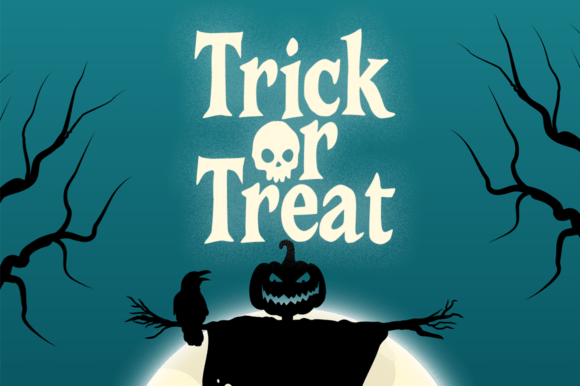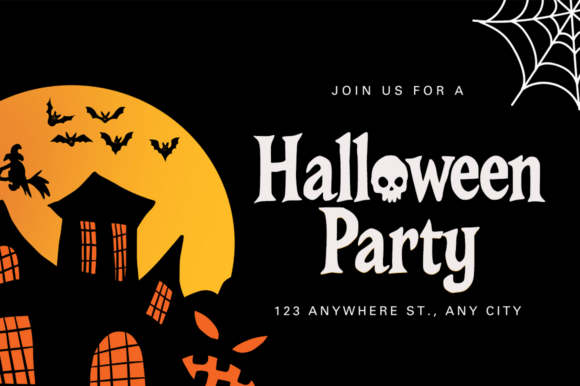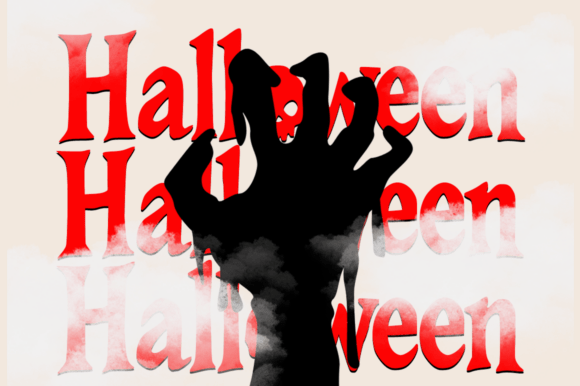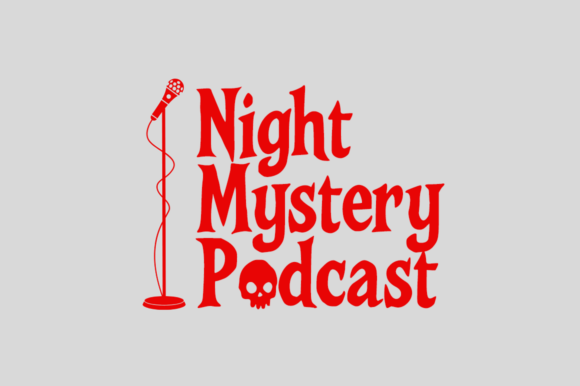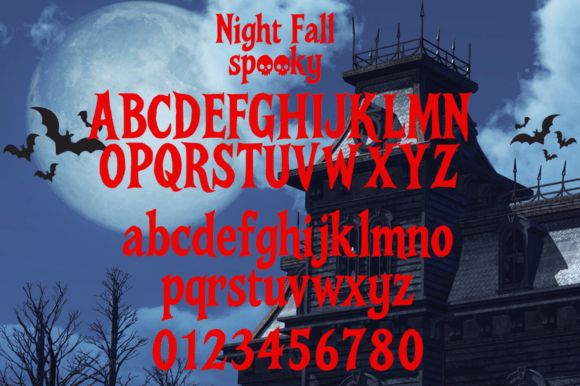
Introduction to Night Fall Spooky Font
Night Fall Spooky is a bold Halloween display font with just the right mix of eerie and playful.
Featuring thick, uneven letterforms with spooky outlines and fun skull-themed alternates, this font is ideal for crafting standout titles and haunted headlines Perfect for Halloween posters, trick-or-treat signs, party invites, eerie merch, or creepy classroom projects, Night Fall Spooky adds a frightfully fun twist to your seasonal designs.
Key Features of Night Fall Spooky Font
Why Choose Night Fall Spooky Font?